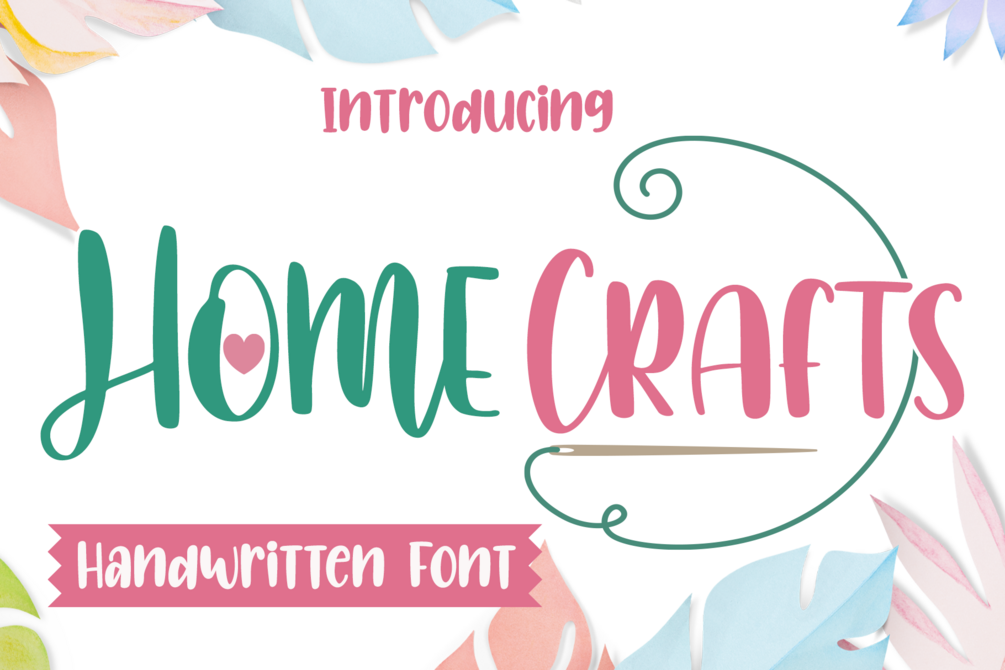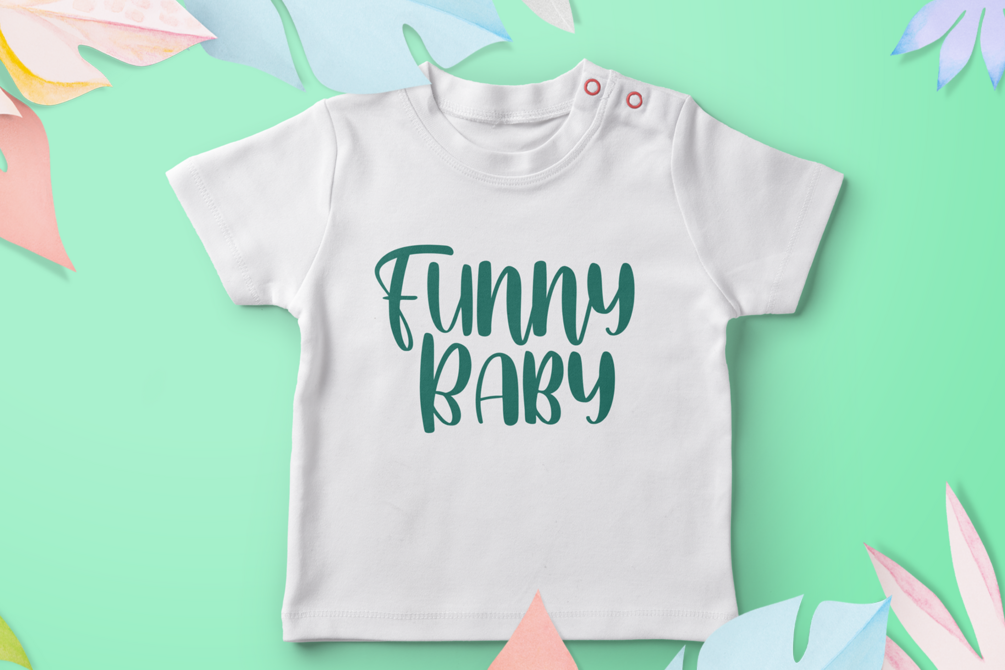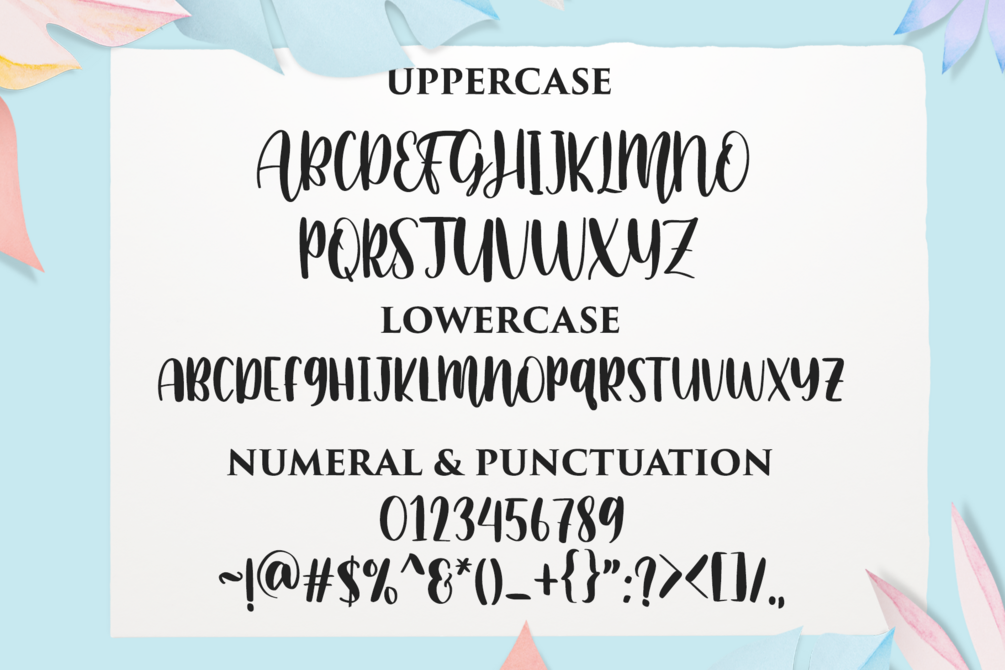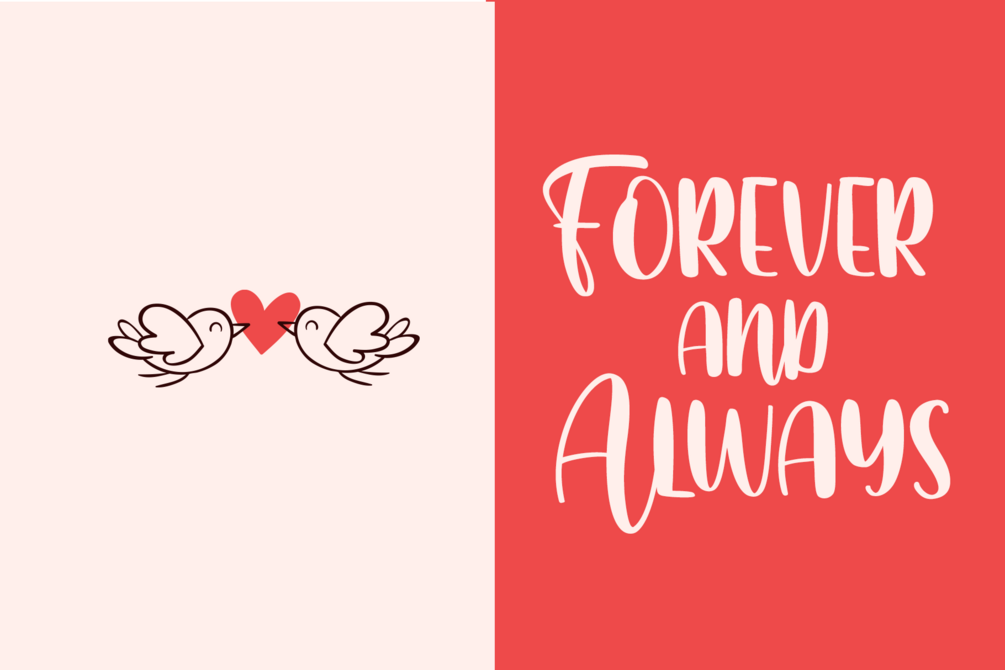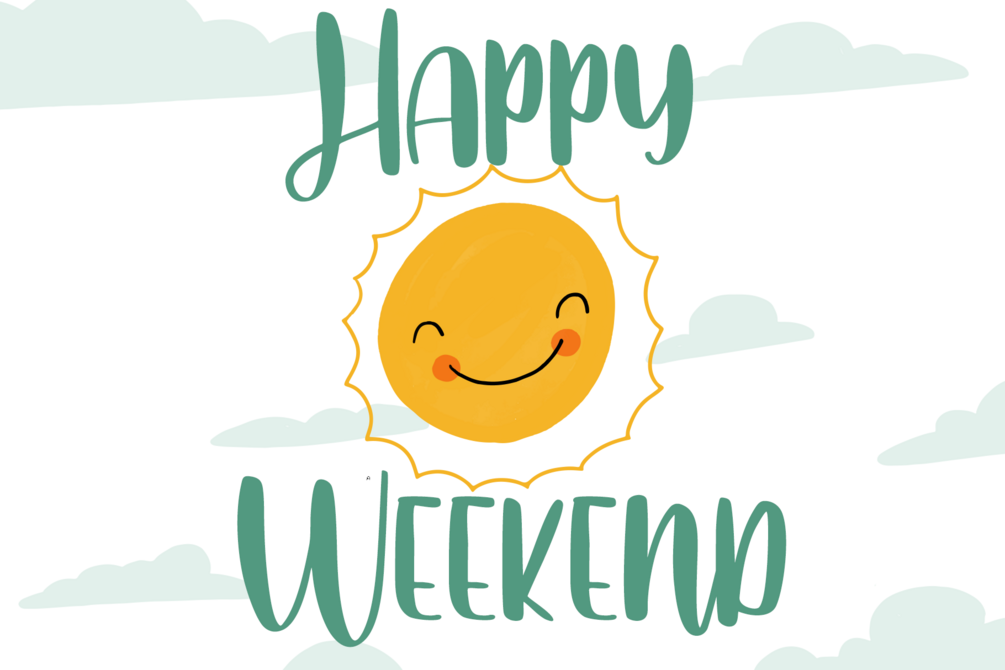
Home Crafts - Lovely Handwritten Font for Social Media, DIY Projects & Calligraphy
Home Crafts is a lovely handwritten script font that brings warmth, authenticity, and handmade charm to every design. Perfect for Instagram quotes, Pinterest graphics, social media posts, DIY crafts, Cricut projects, home decor signs, greeting cards, logos, and calligraphy-style branding. This versatile handwritten font turns any creative idea into a true piece of art!
- Ligatures & Swashes
- Multilingual Support